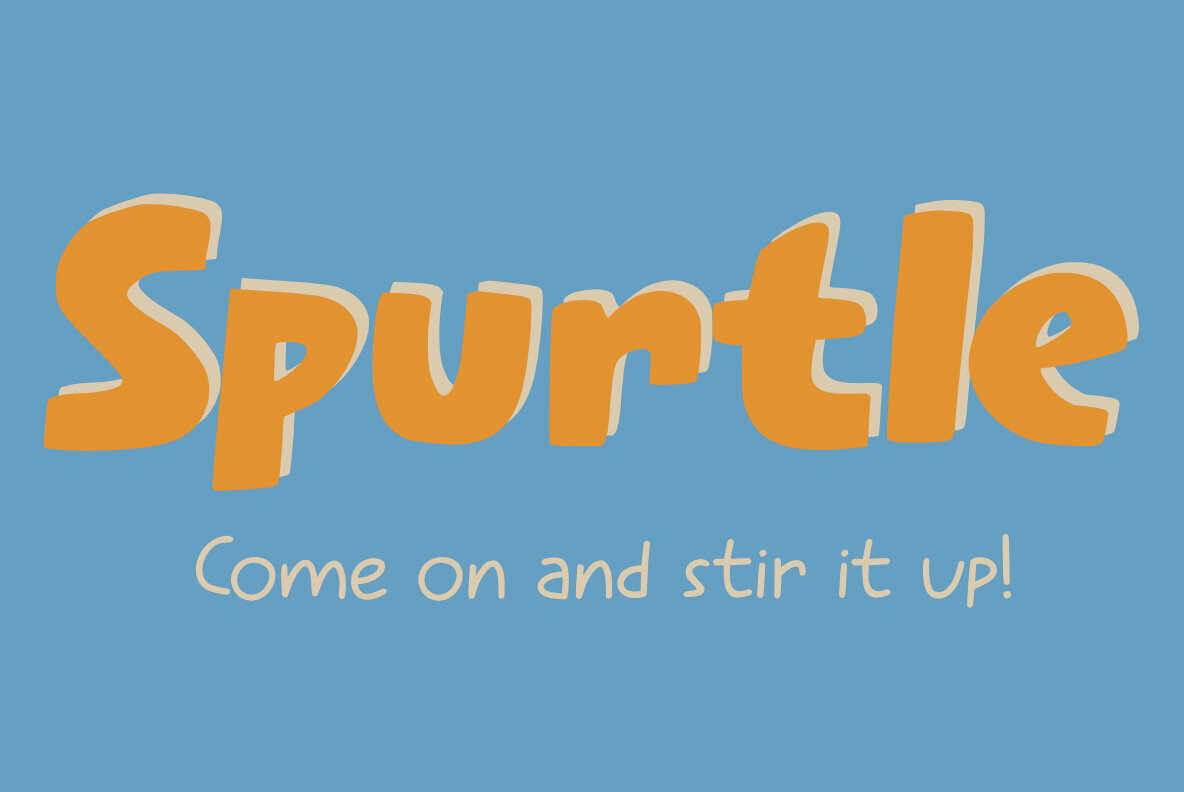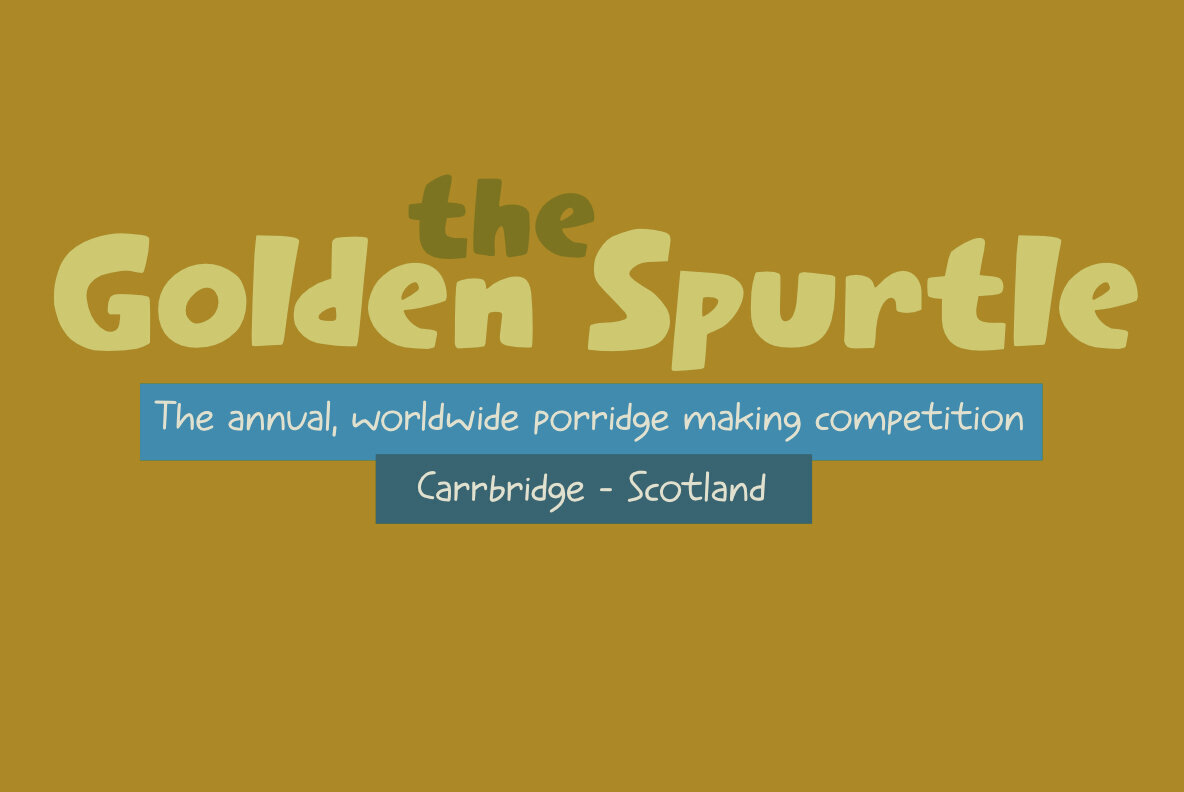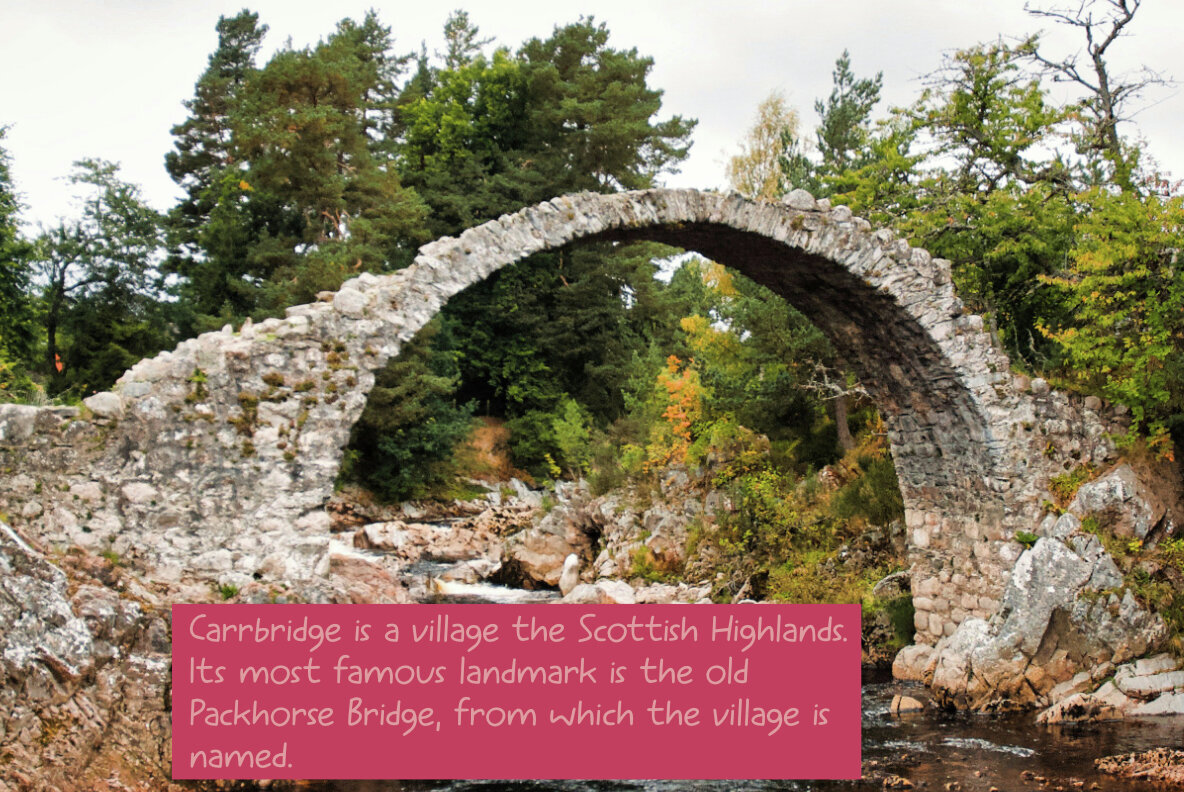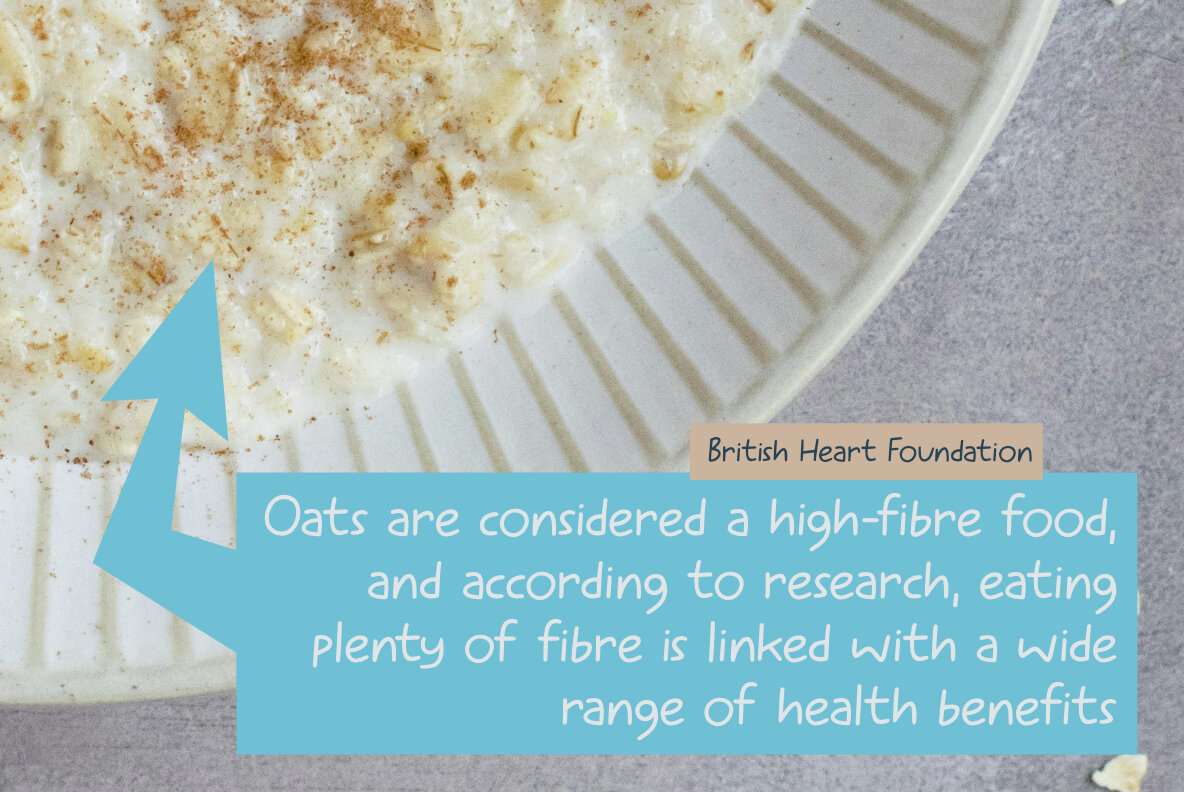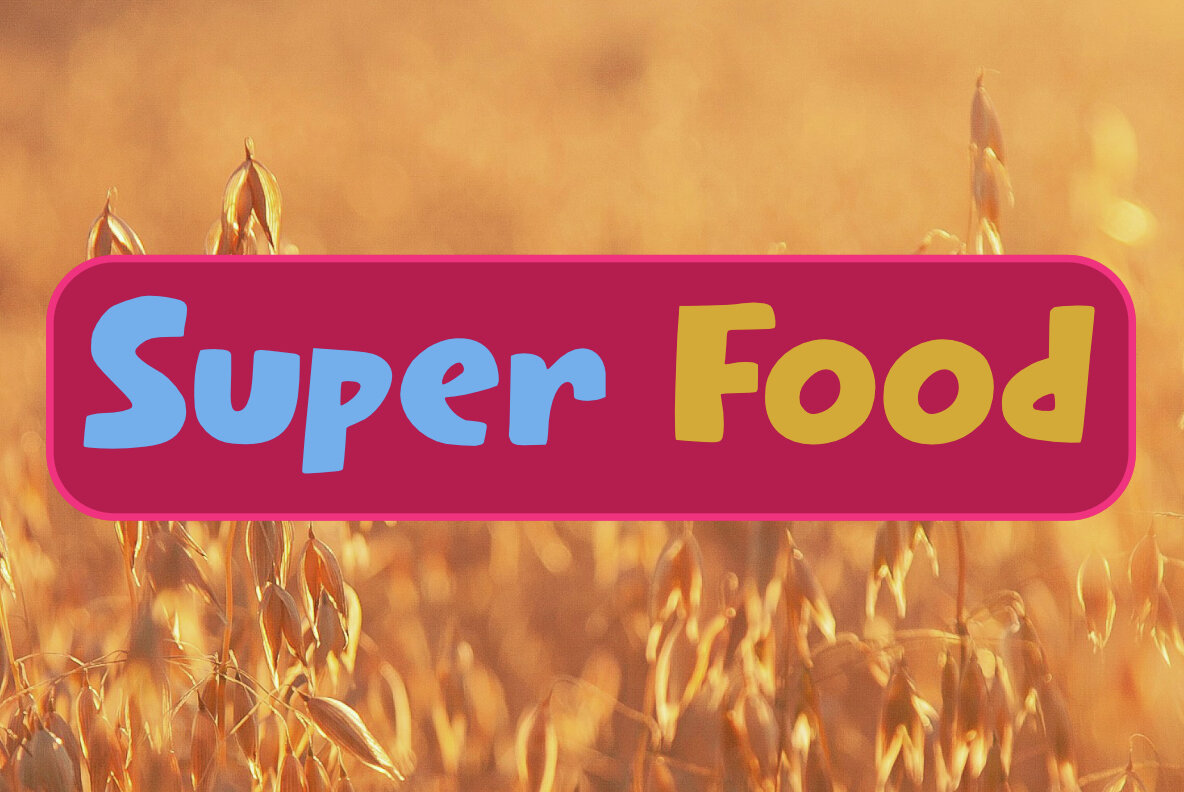
Spurtle Font
Spurtle Line Regular
Spurtle Regular
Spurtle Italic
Spurtle Line Italic
Spurtle draws inspiration from the Scottish kitchen utensil that lends its name—a simple, purpose-built tool with a rich history. This approachable font family was inspired by the annual porridge cooking contest in Carrbridge, Scotland, and captures the warmth and authenticity of handmade design. Spurtle contains two handcrafted fonts, each with its own italic style. These fonts work seamlessly together for layered typography, but each maintains a unique presence on its own. The letterforms reflect a subtle, human touch—perfect for projects that seek a blend of character and clarity.Spurtle: A Handmade Font Family Inspired by Tradition